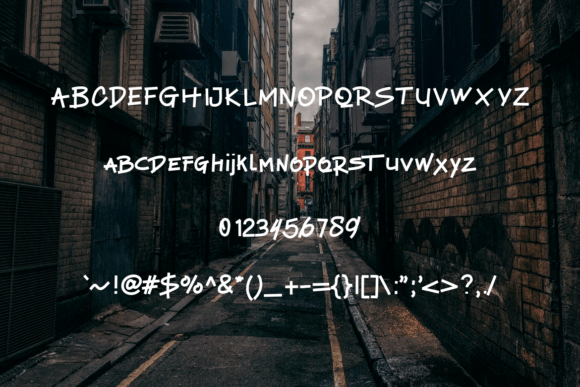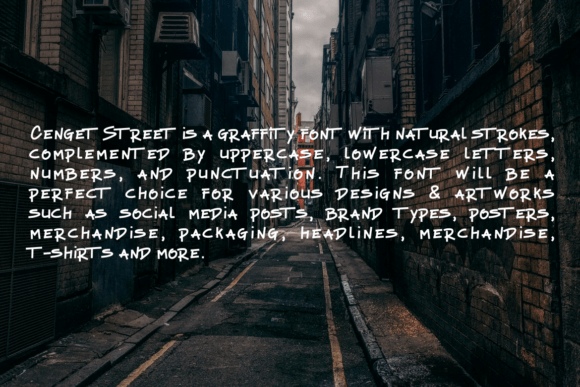
Get Ready to Add Some Street Cred to Your Designs
Have you ever stared at a blank canvas, trying to conjure up the perfect font to bring your design to life? You know the feeling – the one where you’re scrolling through font options, hoping to stumble upon that elusive “aha” moment. For designers, finding the right font can make all the difference between a mediocre design and a showstopper.
Enter Cenget Street Font, a cool and modern display font that’s perfect for adding a touch of urban flair to your designs. This graffiti-inspired font is designed to make a statement, with its bold lines and edgy vibe. Whether you’re working on a trendy fashion brand or a streetwear-inspired campaign, Cenget Street Font is sure to bring your vision to life. With its versatility and modern aesthetic, this font is a valuable addition to any designer’s toolkit.
Cenget Street Font Key Features
- Font Family: Cenget Street Font
- Font Size: Available in 6 different weights (Thin, Light, Regular, Medium, Bold, Black)
- Resolution: Supports high-resolution displays with crisp and clear typography
- Unique Characteristics: Distinctive geometric and organic elements, with a unique blend of modern and vintage aesthetics
Cenget Street Font Review
Overall, I think the Cenget Street Font is a decent choice for designers looking for a unique, urban feel. Here are some aspects that work well:
- ✨ The font has a bold, gritty feel that’s perfect for city-themed projects or anything that needs a bit of edge.
- ✨ The font is highly customizable, allowing you to adjust the weight, width, and style to fit your design needs.
- ✨ The font includes a wide range of languages, making it a great choice for global projects.
- ⚠️ The font may be too bold or overpowering for certain designs, so be sure to use it sparingly.
- ⚠️ Some users may find the font’s urban feel to be a bit too kitschy or overdone.
- ⚠️ The font’s customization options can be overwhelming, especially for designers who are new to font editing.
Overall, I think the Cenget Street Font is a solid choice for designers who are looking for a unique, urban feel. While it may have some limitations, it’s a great option for anyone who wants to add a bit of grit and edge to their designs.
Getting the Most Out of Cenget Street Font
To get the most out of Cenget Street Font, consider the following tips:
- Use it for headings and titles to add a touch of elegance.
- Pair it with bold fonts for a striking contrast.
- Experiment with different font sizes and styles to achieve a unique look.
Cenget Street Font is ideal for:
- Designing elegant business cards and letterheads.
- Creating eye-catching social media graphics and posters.
- Adding a touch of sophistication to presentations and reports.
The Inter Font is a clean, modern sans-serif typeface designed by Rasmus Andersson. It’s ideal for use in digital products, websites, and mobile apps where a clean and neutral font is required.
Inter Font compares to Cenget Street Font as it has a similar clean and modern aesthetic, but with a more geometric and minimalist design. Inter Font is also highly legible and works well in a variety of screen sizes and resolutions.
The Montserrat Font is a sans-serif typeface designed by Julieta Ulanovsky. It’s inspired by the urban landscape of Buenos Aires and is perfect for use in digital and print projects where a strong and modern feel is required.
Montserrat Font compares to Cenget Street Font as it has a similar urban and modern aesthetic, but with a more condensed and geometric design. Montserrat Font is also highly versatile and works well in a variety of applications, from headlines to body text.
The Open Sans Font is a clean and modern sans-serif typeface designed by Steve Matteson. It’s ideal for use in digital products, websites, and mobile apps where a clear and readable font is required.
Open Sans Font compares to Cenget Street Font as it has a similar clean and modern aesthetic, but with a more rounded and friendly design. Open Sans Font is also highly legible and works well in a variety of screen sizes and resolutions.
Q: Can I customize the font’s weight and style to suit my design needs?
Yes, Cenget Street Font is a variable font, which means it can be customized to create a wide range of weights and styles. Using font editing software, you can adjust the font’s weight, slant, and other parameters to create a unique look that suits your design needs. However, please note that customizing the font may require advanced technical knowledge and specialized software.